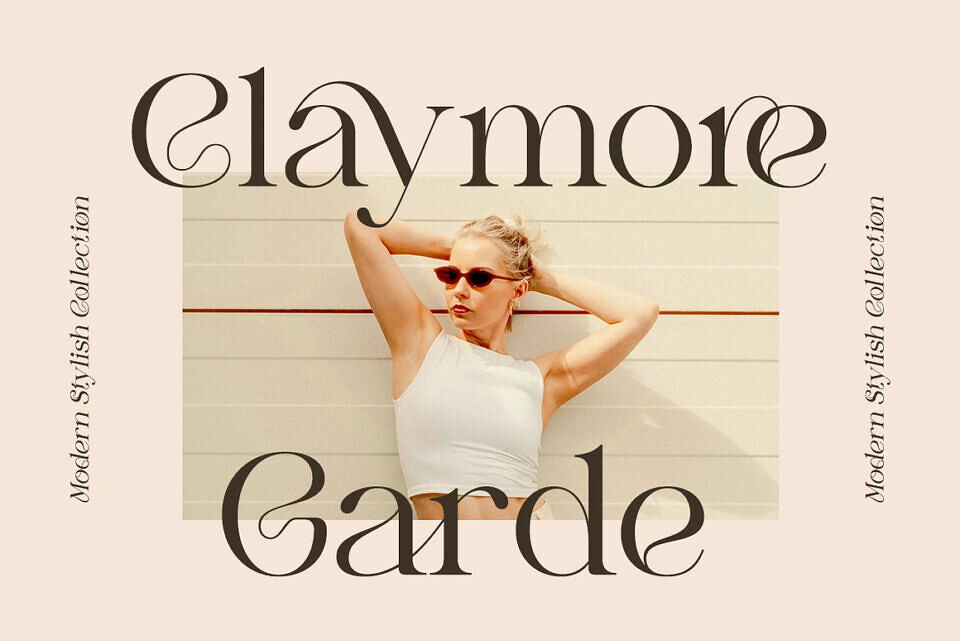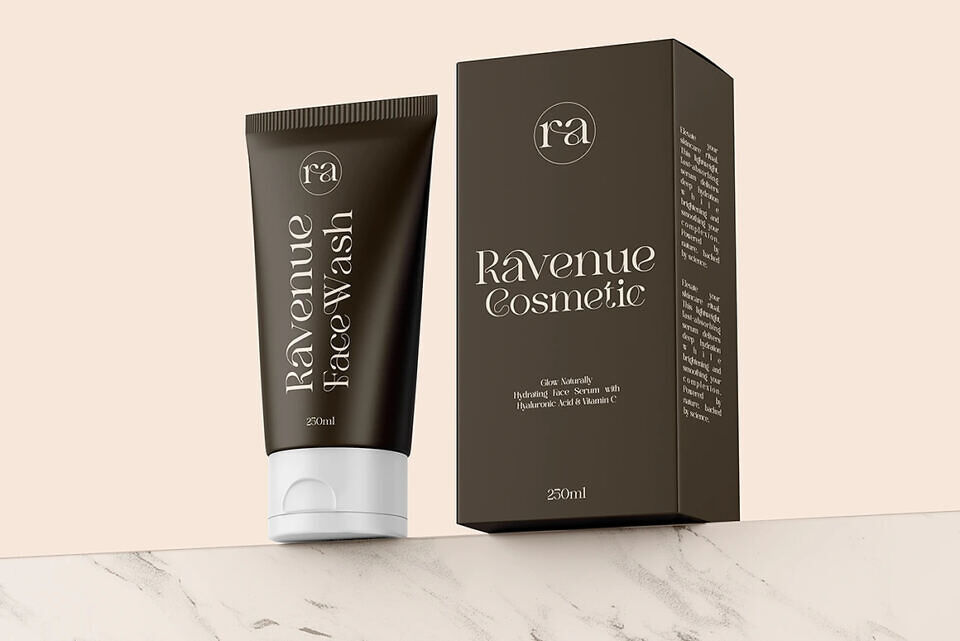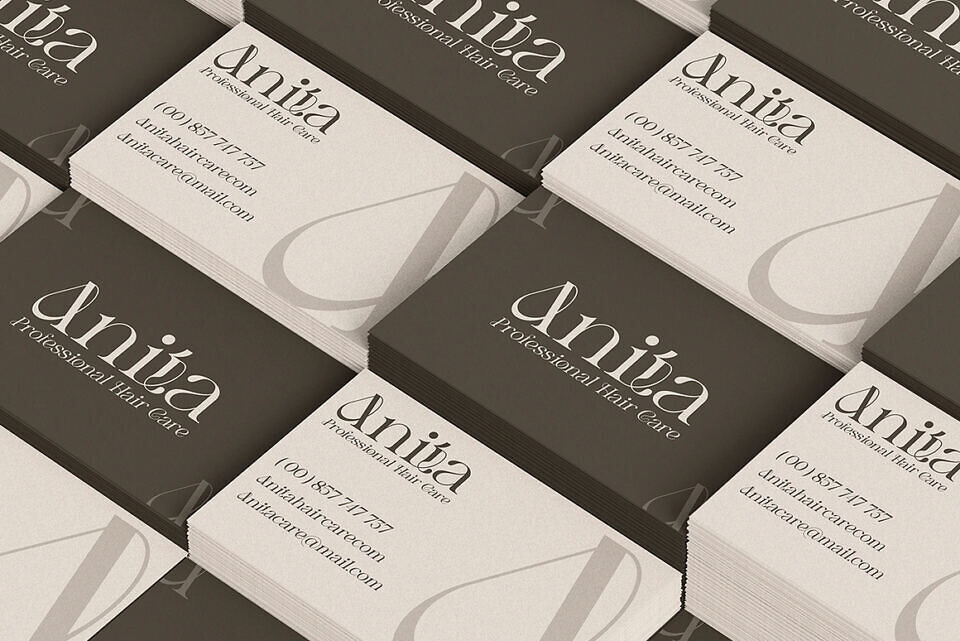
Pear Haresh Font
Pear Haresh is a modern ligatures with stylish serif font that blends timeless elegance and contemporary twist. Designed for creatives who seek a luxurious, high-end feel in their branding, editorial designs, or digital content, Pear Haresh is the perfect choice for making a bold yet refined statement.